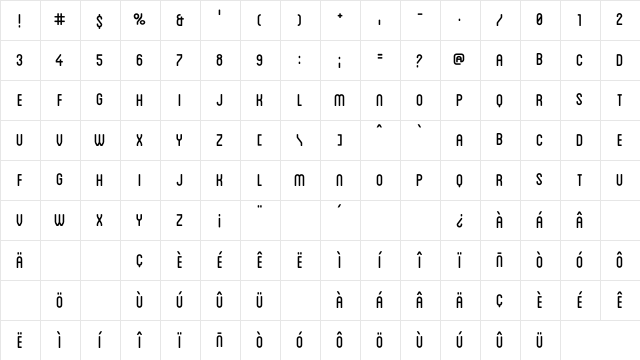
Blanch Caps Free Font
Blanch Caps
Style: Caps
Foundry: Atipus
Designer: Atipus
Year: 2012
Blanch Family
Blanch Caps
Complete Blanch Caps glyph index. Displaying only characters natively supported by Blanch Caps font.
Design Context for Blanch
Blanch is a composed and adaptable typeface that performs quietly and consistently across a wide range of design contexts.